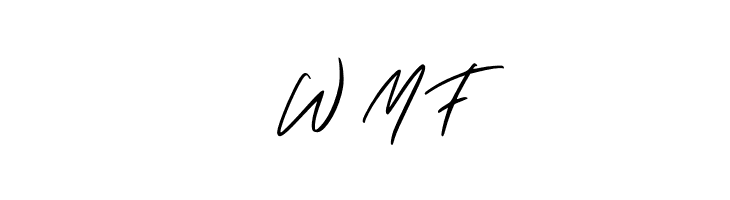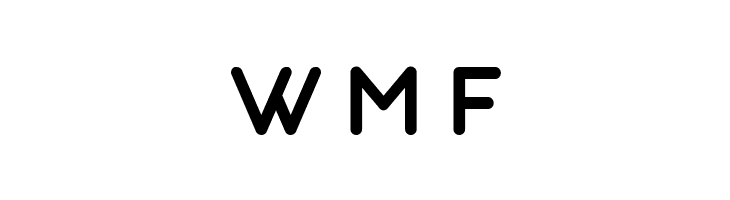
Arkitech Round Light Font
A modern, rounded font with geometric structure and consistent spacing.
Arkitech Stencil Medium Font
A modern, geometric stencil font with a futuristic and industrial design.
Arkland Free Regular Font
A stylish and elegant script font with flowing, cursive characters.
Arkley Font
Font by Mr. Typeman
A handwritten, casual script font with a playful and informal appearance.
Arktivity Regular Font
A playful, hand-drawn style font with tall, narrow letters and a whimsical feel.
Arkwright Font
Galdino Otten
An elegant serif font with a modern outline design, perfect for sophisticated projects.
Arlaya FREE Font
A bold, expressive brush script font with a hand-painted appearance.
ArlayaFREE Font
A dynamic script font with brush-like strokes and a handcrafted appearance.
Arlen Script DEMO Font
A bold, flowing script font with elegant cursive letterforms and decorative flourishes.
Arlequin Font
imagex - www.imagex-fonts.com
A playful and whimsical font with a hand-drawn, artistic style.
Arletta Font
A sophisticated script font with elegant flourishes and high contrast.
Arley Font
A playful and whimsical script font with flowing, interconnected letters.
Arlinda Font
Font by Skiiller Studio
A bold, expressive handwritten font with a lively brush-like style.
ArlingtonDEMO Font
A bold, decorative font with vintage flair and intricate detailing.
ArlingtonDEMO Font
Letterhend Studio - Hendry Juanda - creativemarket.com/letterhend
A bold, decorative font with vintage Western flair and high contrast strokes.
Arlista Font
A graceful script font with fluid, handwritten elegance.
Arlobuns Free Font
A modern, handwritten font with fluid, cursive strokes and elegant connections.
Arlon SemiBold DEMO Font
Marc Lohner - www.marc-lohner.com
A modern, rounded sans-serif font with smooth curves and a clean look.
Arma Blanca BCN Font